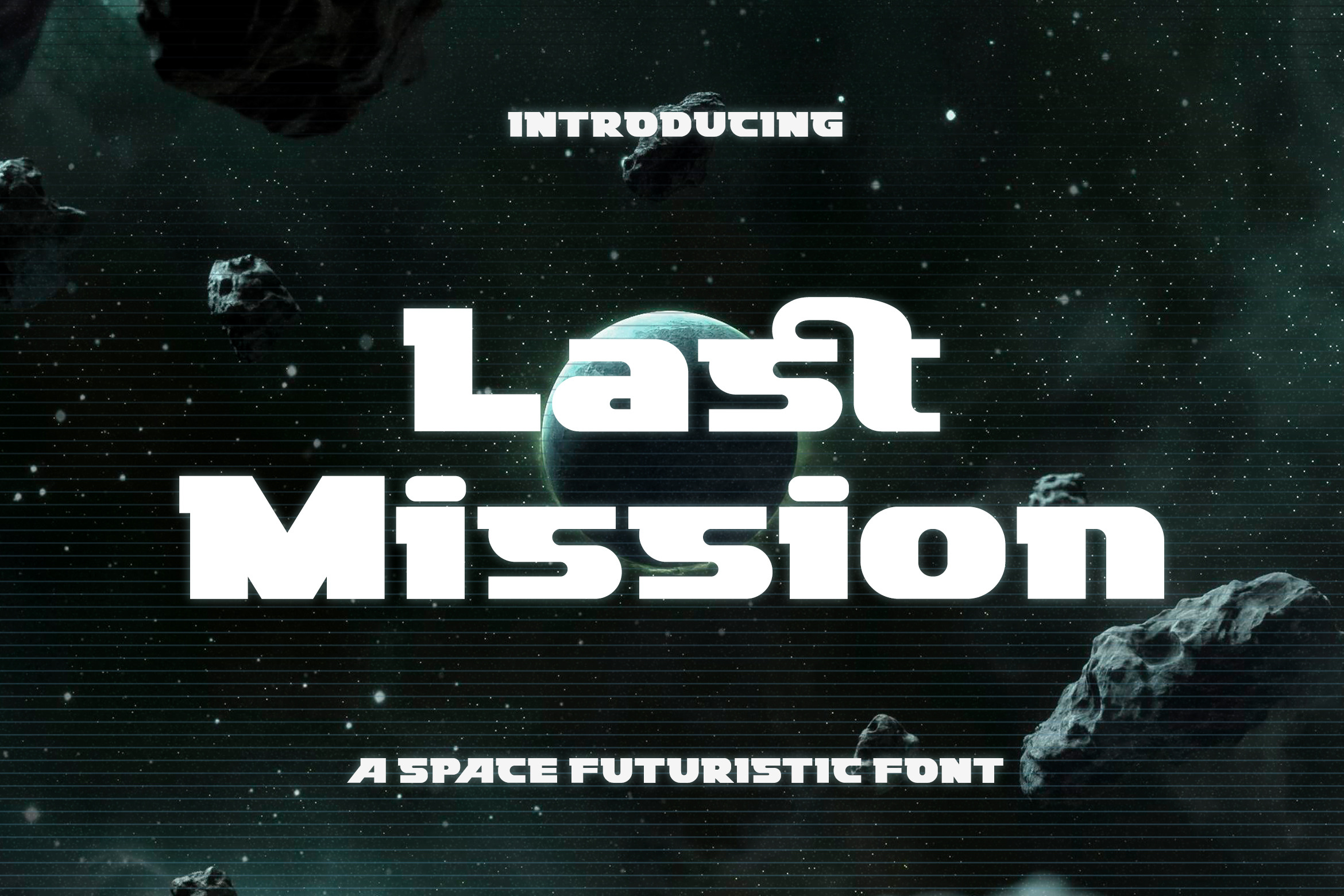
Last Mission - Space Futuristic Font
Last Mission is space futuristic font in a modern style. Perfect for games, sci-fi themes, and space adventures!